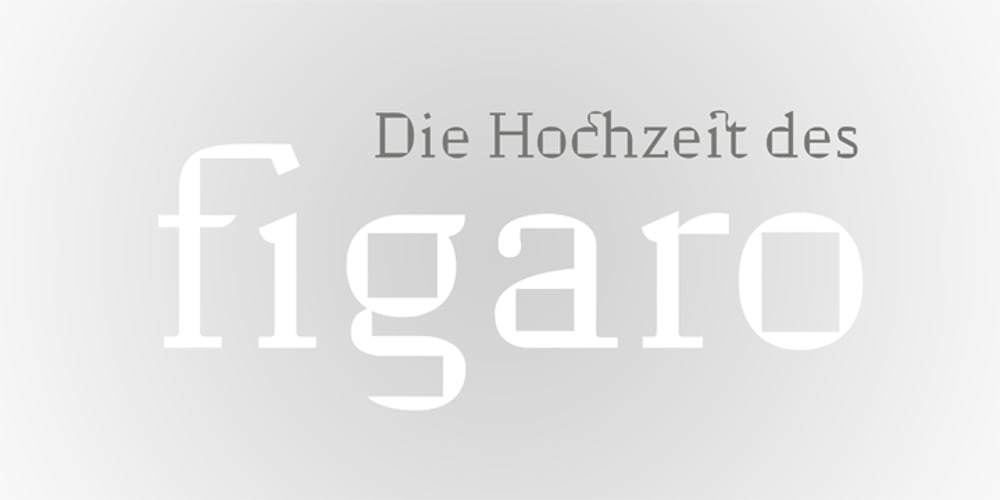
Easton Font Family was designed by Sebastian Wieland and published by Typemotion. Easton contains 3 styles and family package options. I wanted to combine a classical antiqua with corners and edges. I was convinced this combination would create a new, a fresh design of types. At the beginning I used the forms from “Goudy Old Style”, later I modified the sizes, the widths of the letters, the x-height and their forms in general. At the moment the Easton Family consists of 3 styles called Easton Serif, Easton Semiserif and Easton Sans.